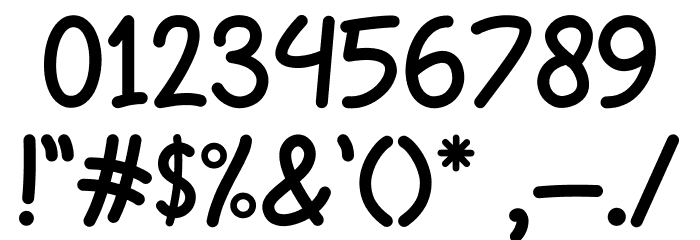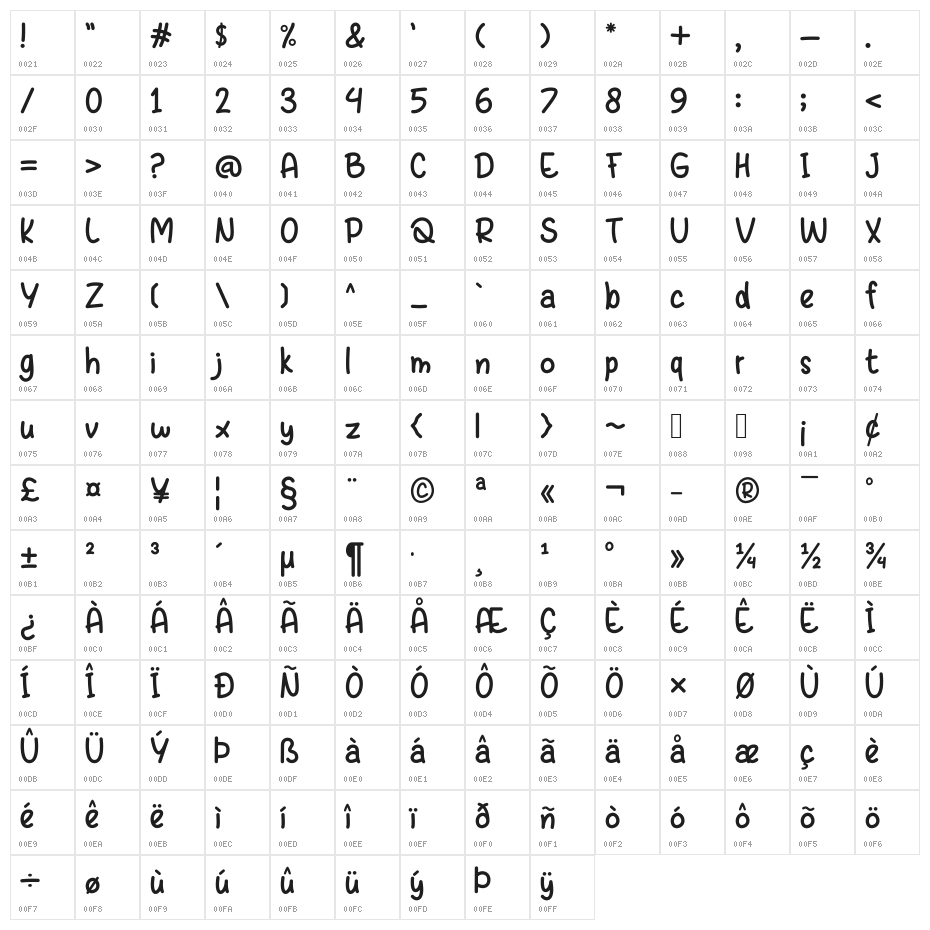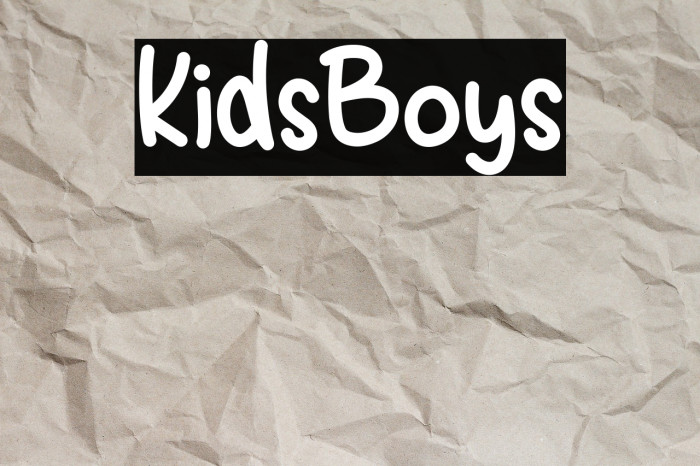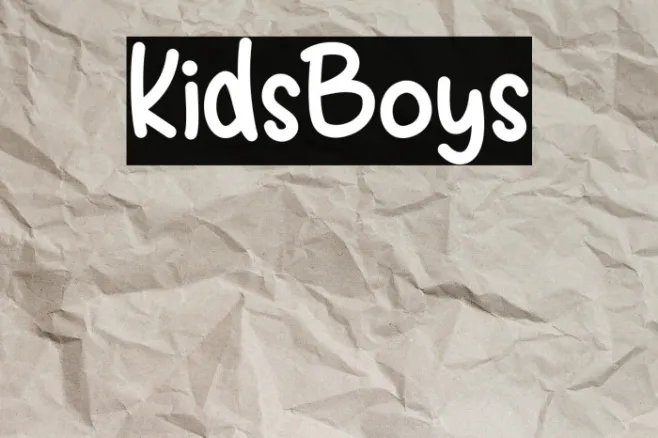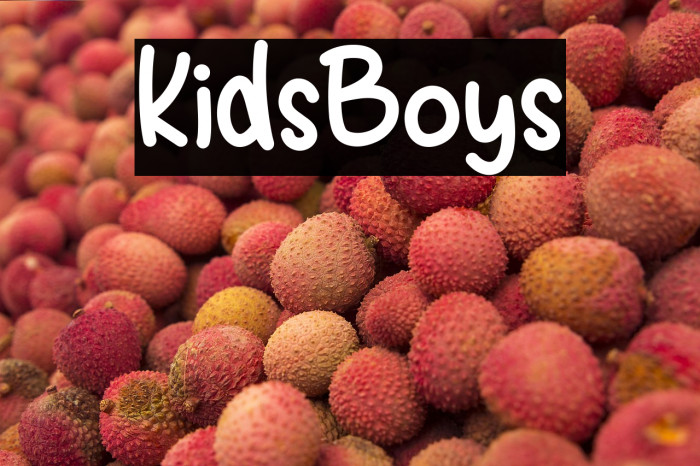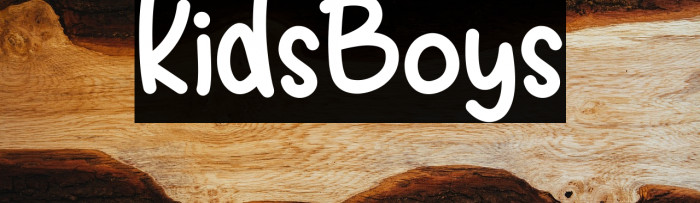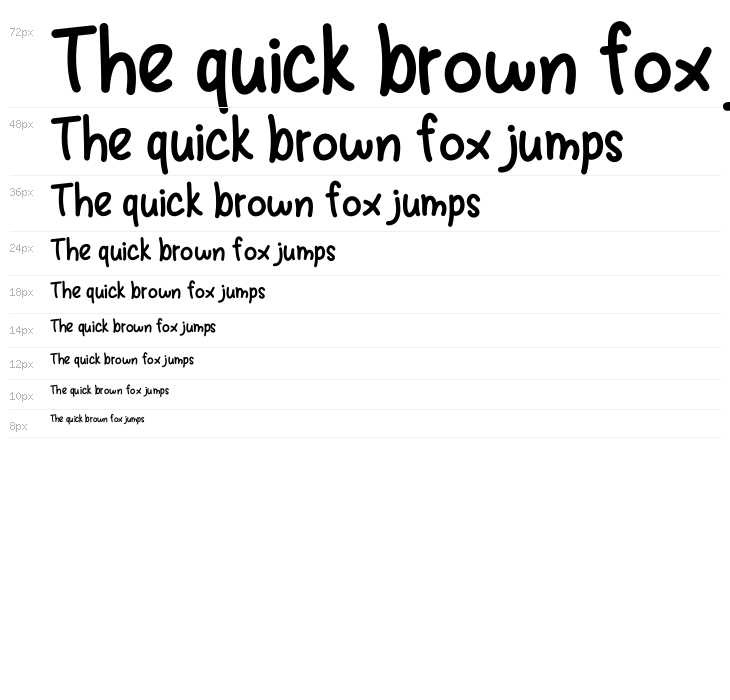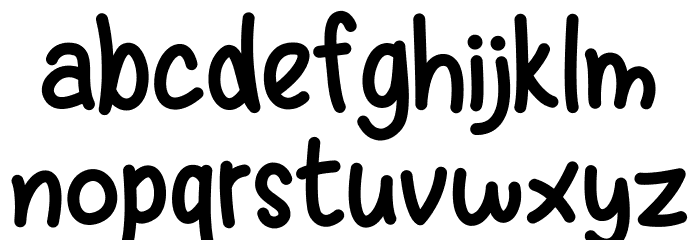
KidsBoys Font
KidsBoys Description
This playful and whimsical font features rounded, bubbly characters that convey a sense of fun and creativity. The letters are slightly irregular, giving them a hand-drawn appearance that adds to their charm. The uppercase and lowercase letters maintain a consistent style, with smooth curves and a friendly demeanor. The numbers and special characters are equally playful, making this font ideal for projects aimed at children or those seeking a lighthearted tone. The overall design is approachable and versatile, suitable for a variety of informal applications.
| Proposed Projects | Ideal for children's books, playful branding, educational materials, and creative projects. |